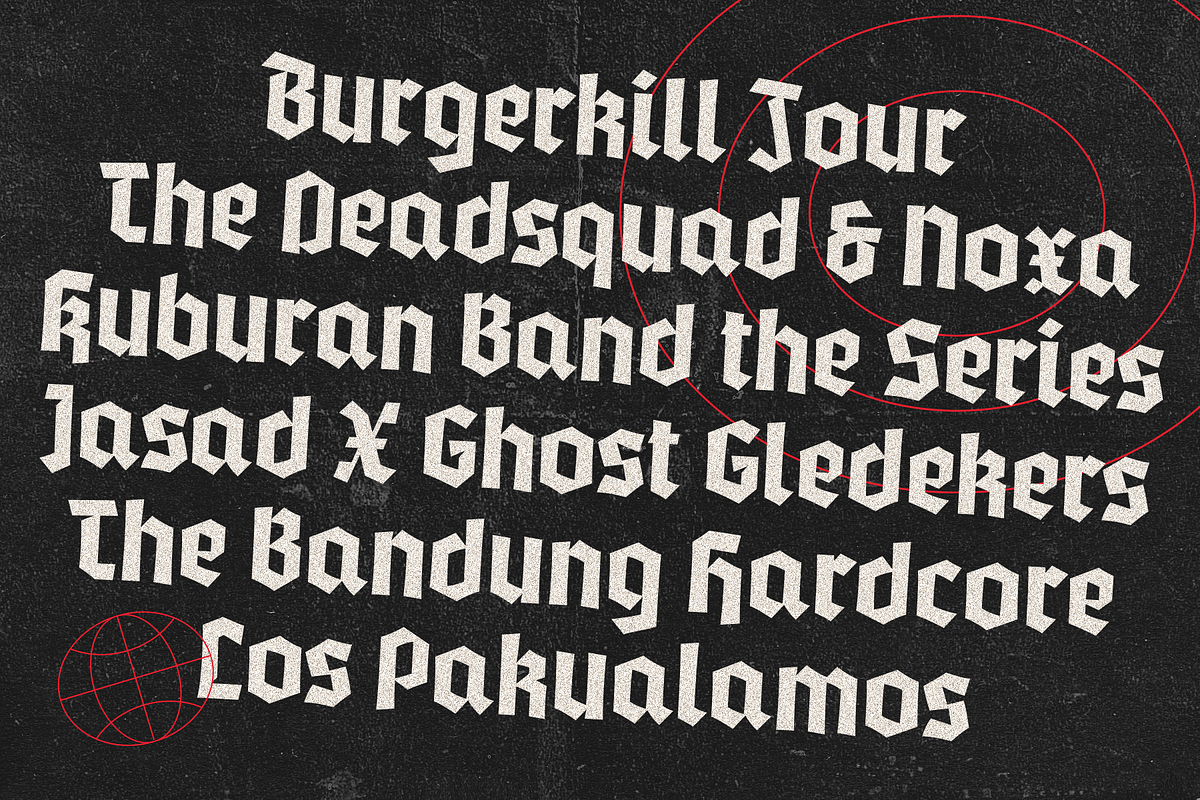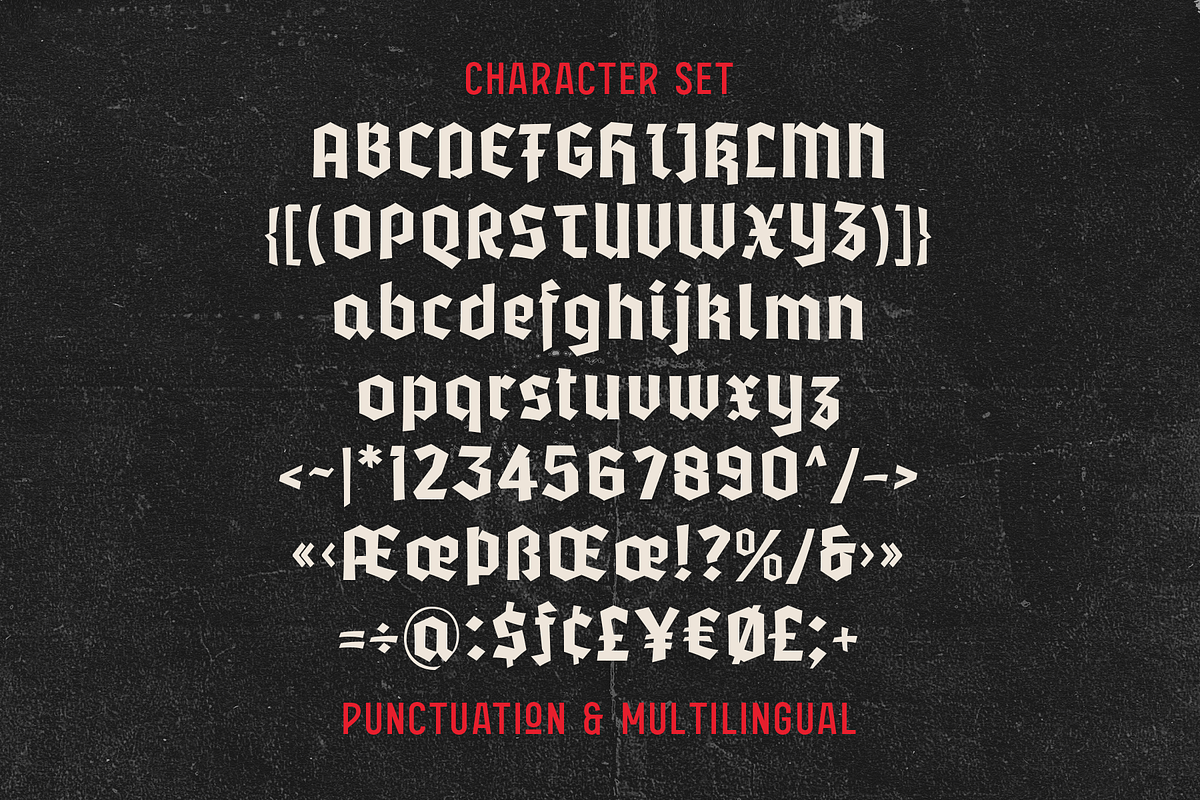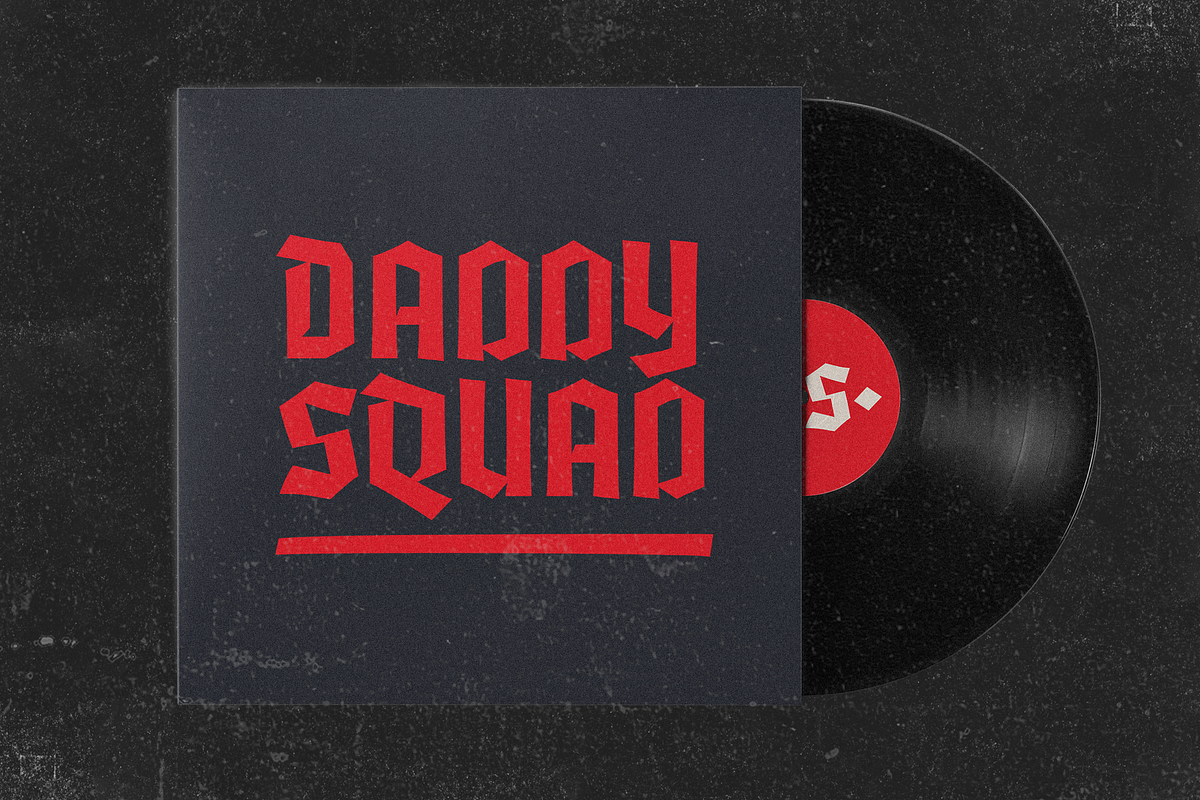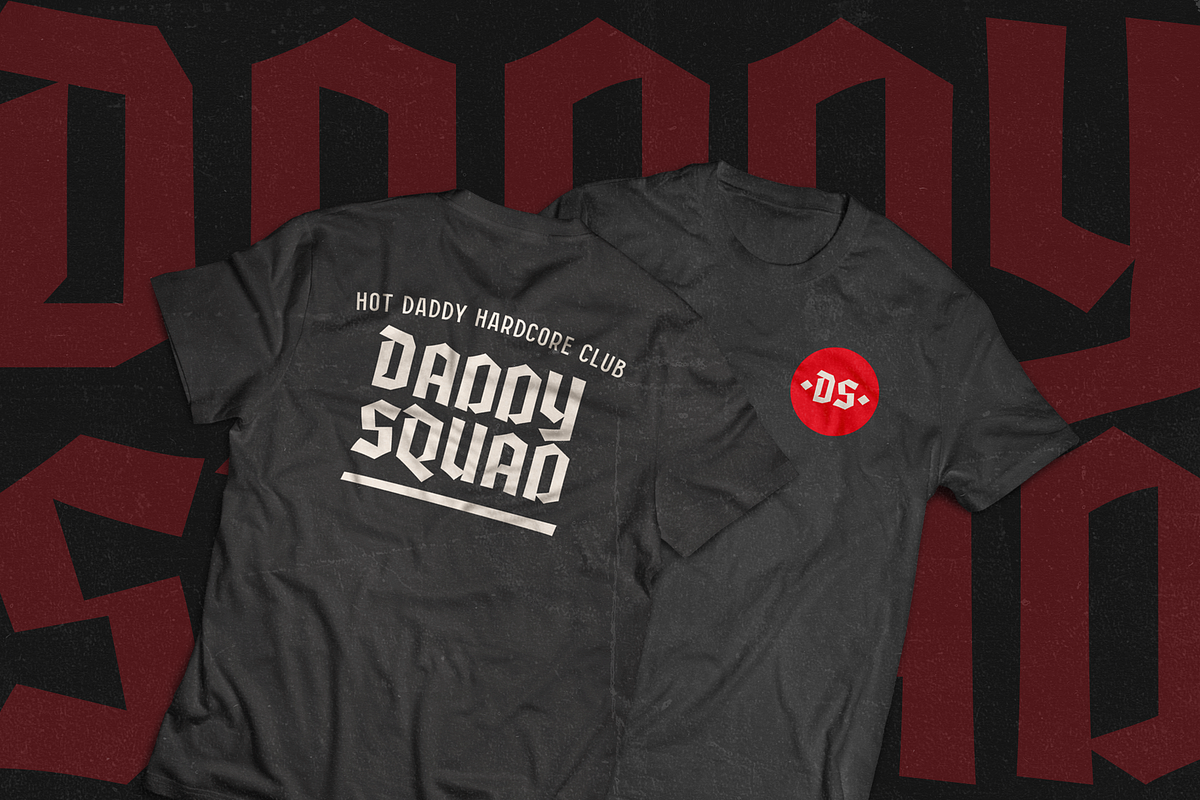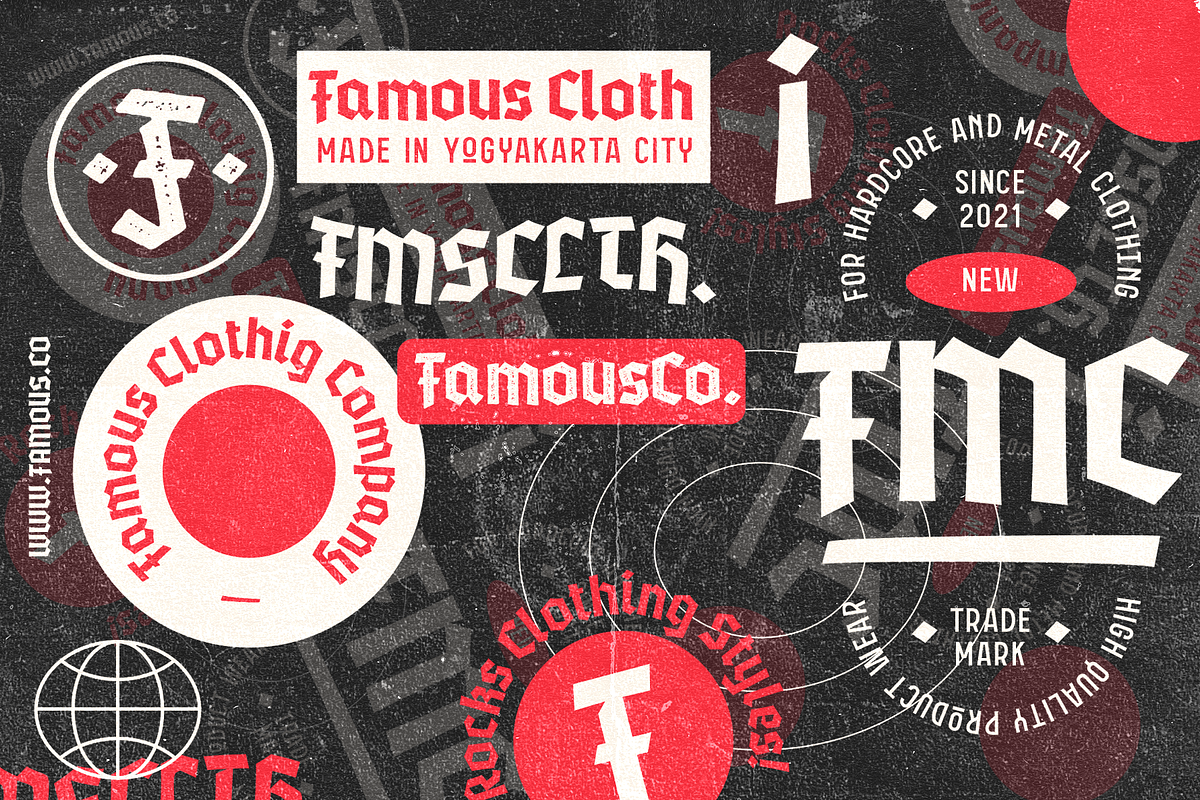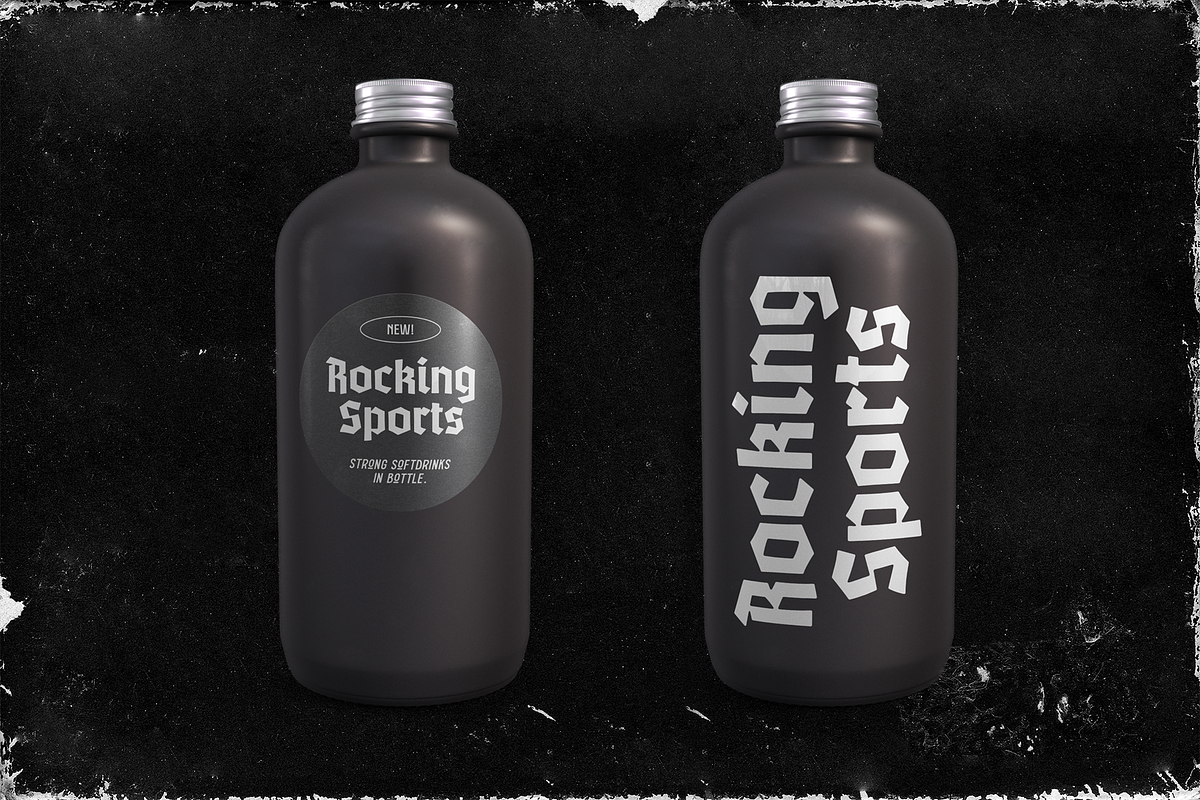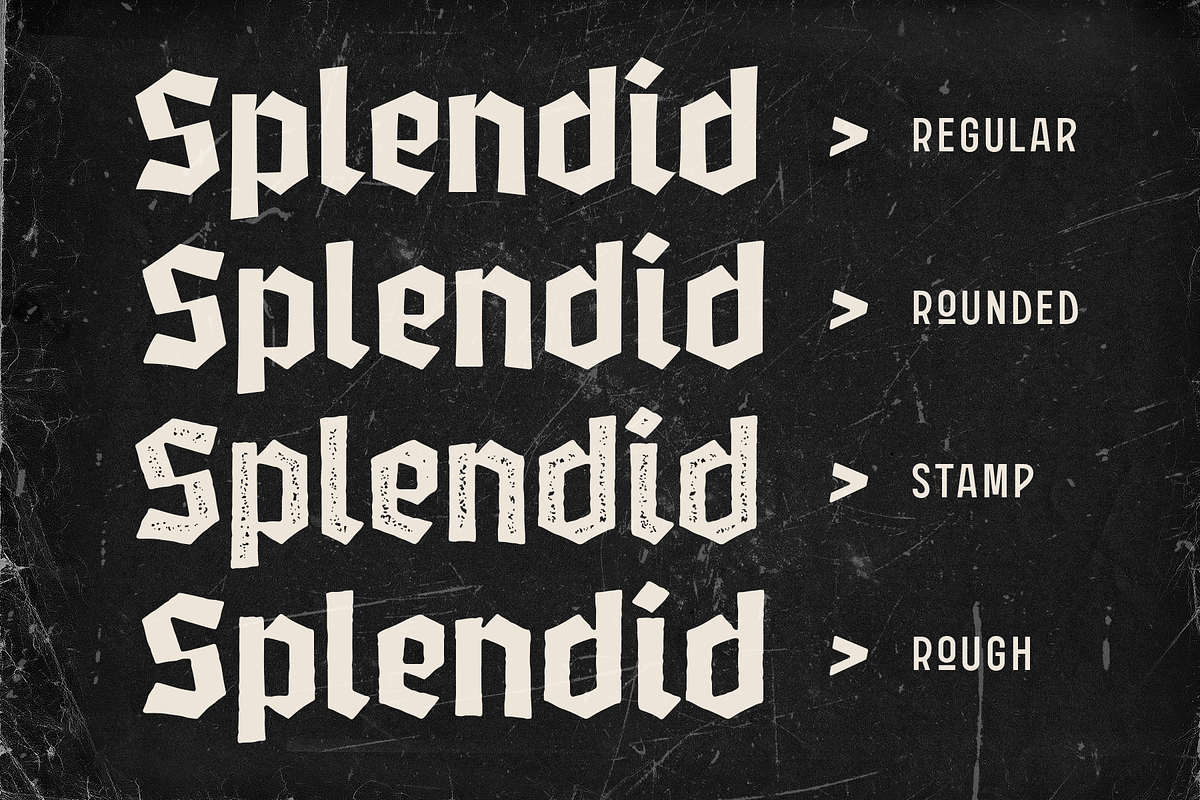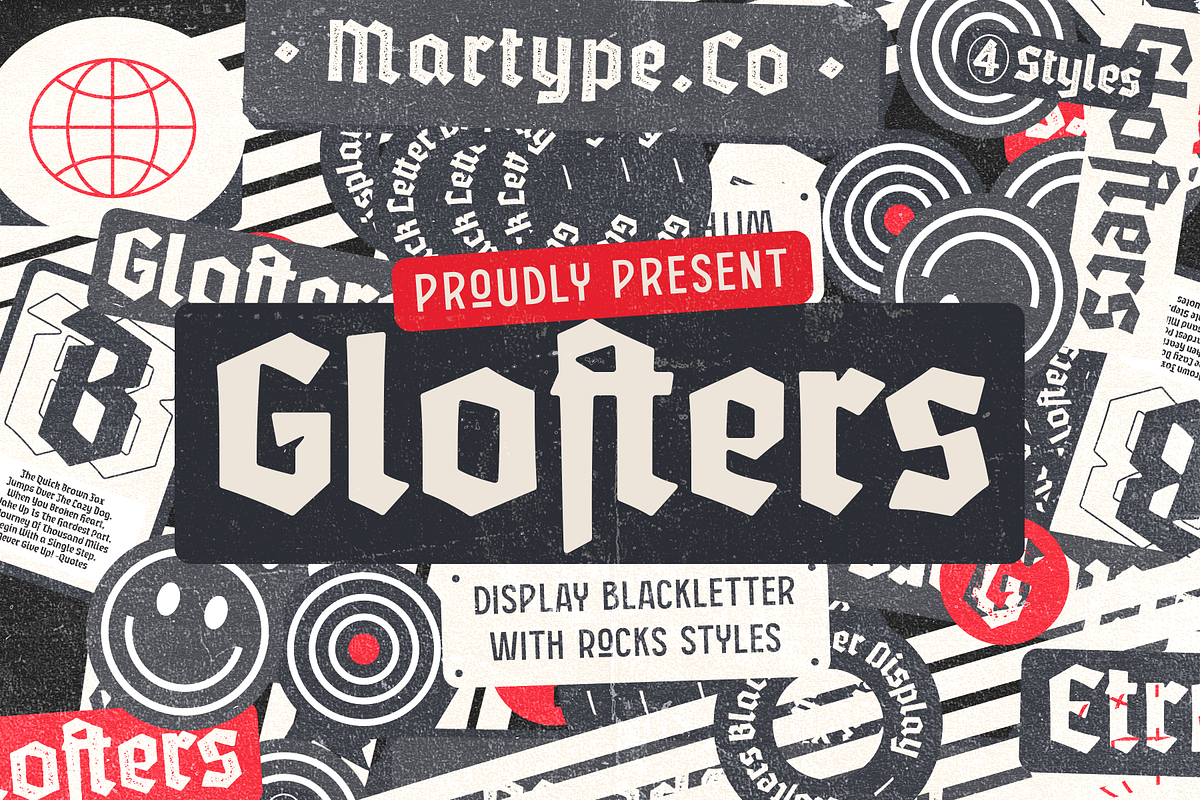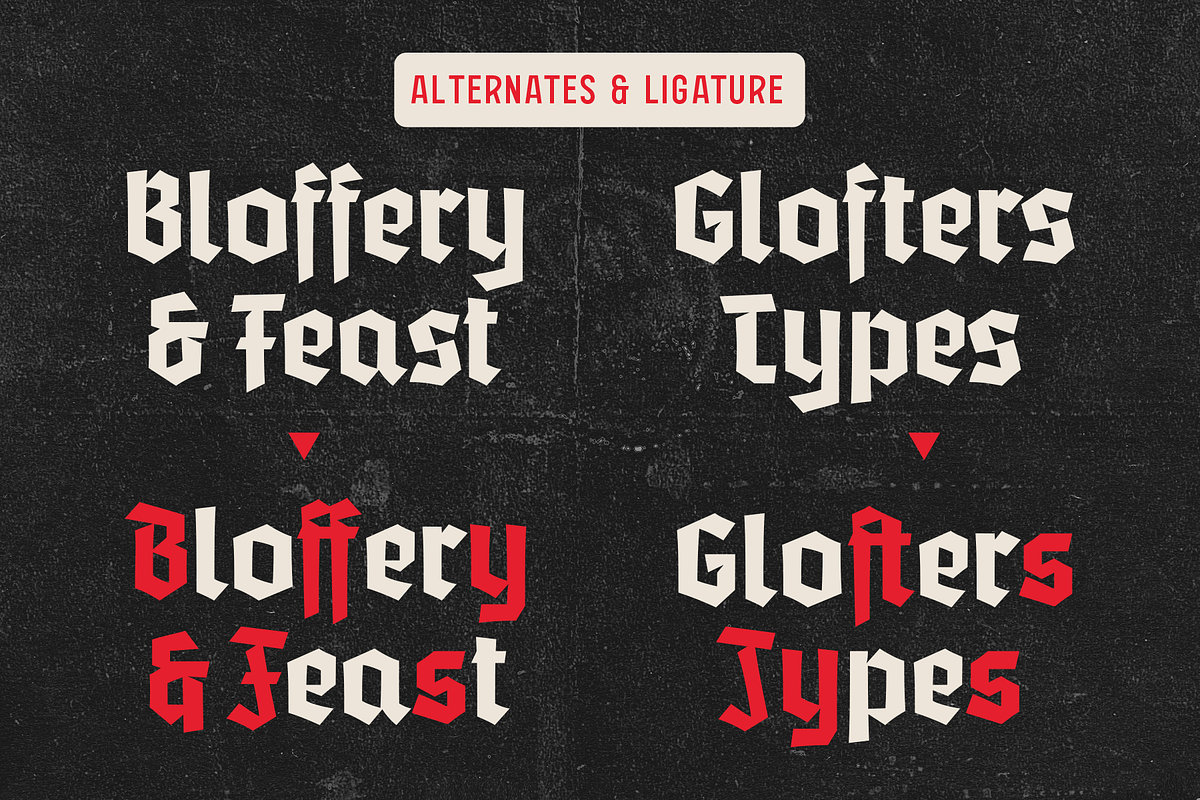
Glofters Blackletter Display Font
Introducing Glofters a display blackletter comes with 4 styles to make it more useable in every design taste, this fonts include alternates and ligature to complete the mix and match your design. Perfect for Poster Headline, Music Label, Logotype, Logo, Merch Design and etc.
- Glofters Regular
- Glofters Rounded
- Glofters Stamp
- Glofters Rough